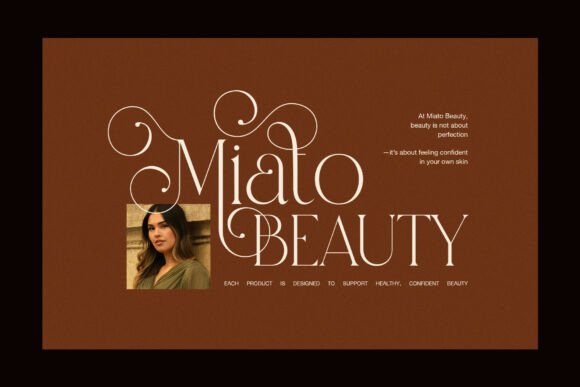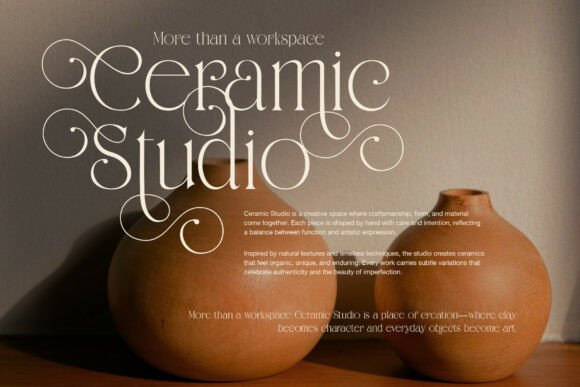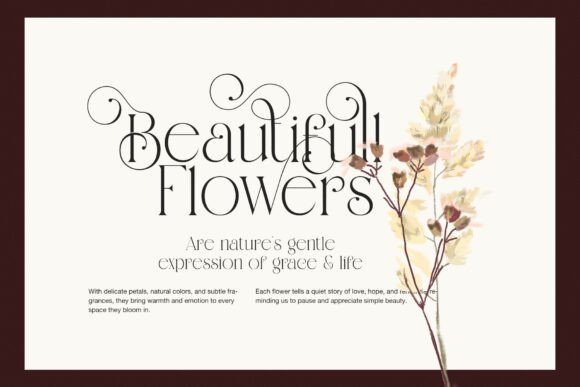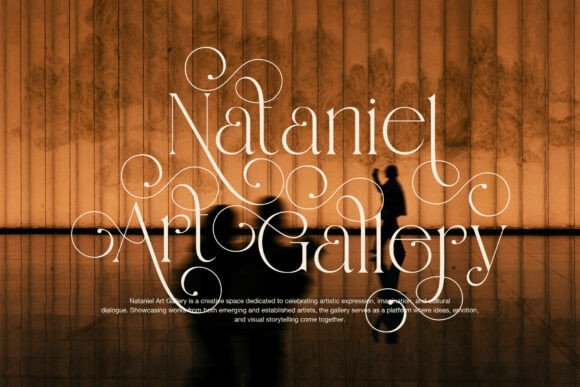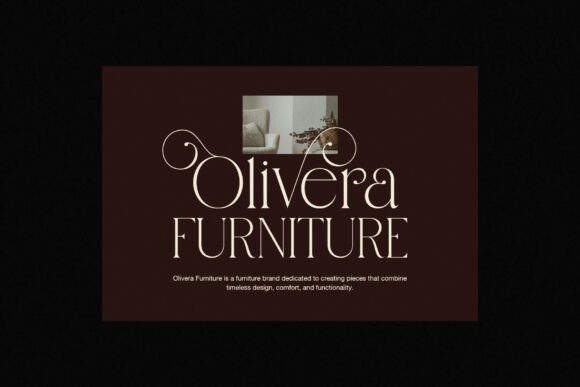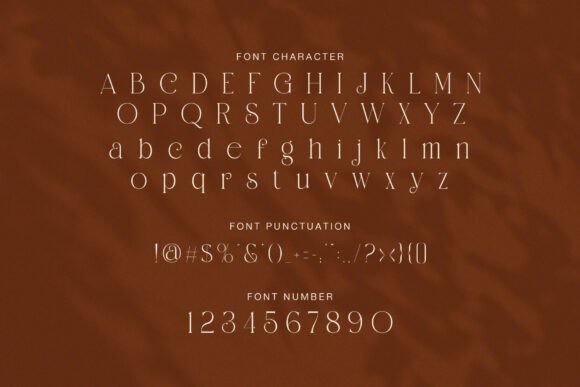
Introduction to Savira Font
Have you ever stumbled upon a design that just feels timeless, like a perfectly crafted sentence in a beautiful novel? For designers, those moments of serendipity can be a game-changer. As you pour over the details, you begin to realize that the secret to that timeless feel lies in the font – and that’s where Savira Font comes in.
As a luxury serif font, Savira is designed to bring refinement and warmth to modern branding. Its elegant design, blending classic structure with soft curves and balanced proportions, creates a sense of calm and confidence that’s hard to find in today’s fast-paced design world. Whether you’re working on a high-end creative project or simply looking for a reliable design resource, Savira Font is an excellent choice – and the best part? It’s available for free download, allowing you to create with a transparent background and an unobstructed view of your creativity.
Key Features of Savira Font
- High-quality design: The Savira Font is designed with precision and care, ensuring a professional look for any creative project.
- Unique characteristics: The Savira Font features a unique blend of modern and vintage elements, making it perfect for creative projects that require a touch of sophistication.
Honest Review: Savira Font
I recently had the chance to work with the Savira Font on a creative project, and I must say, it’s been a great experience. As a designer, I’m always on the lookout for high-quality design resources that can elevate my work, and the Savira Font certainly delivers.
One of the standout features of the Savira Font is its elegant and sophisticated design. The font is perfect for projects that require a touch of elegance and refinement. I particularly appreciated the fact that it comes with a transparent background, which makes it easy to customize and integrate into my designs.
However, I did encounter a few limitations while working with the Savira Font:
- Limited font styles and weights ⚠️
- No support for advanced font features ⚠️
Overall, I’m really impressed with the Savira Font and would definitely recommend it to fellow designers. With its high-quality design and transparent background, it’s a great addition to any design resource library.
Savira Font
The Savira Font is a high-quality design resource perfect for creative projects. With its unique and elegant style, it’s ideal for a variety of applications, from branding to editorial content.
The Savira Font is suitable for various creative projects, including:
- Editorial content, such as magazines and newspapers
- Infographics and visual reports
- Wedding invitations and event materials